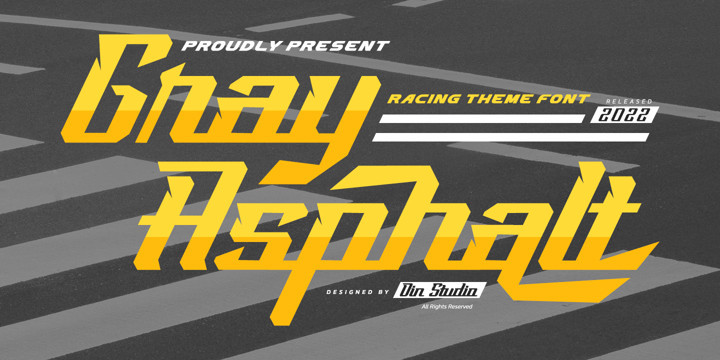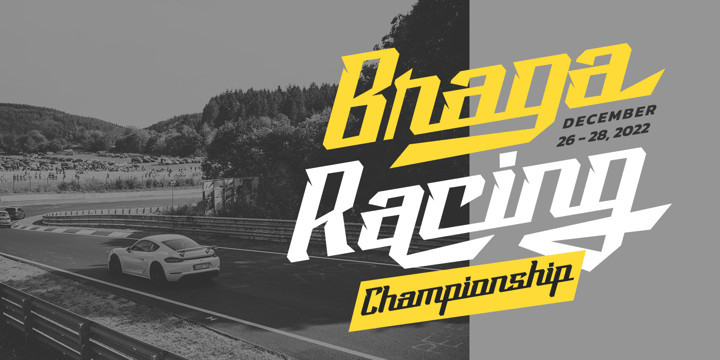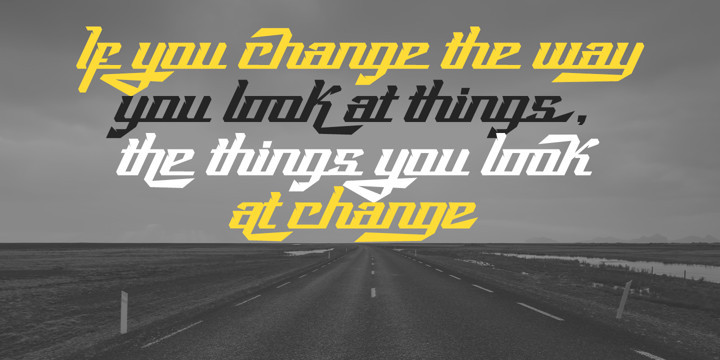
Gray Asphalt Font
Gray Asphalt FontGray Asphalt is a racing-themed script font to give you steady, firm, solid impressions for word or message emphases. Its thick display is suitable to apply on bigger-sized texts.
Gray Asphalt fits best for various designs, such as posters, banners, logos, book covers, headings, printed products, merchandise, social media, and more. Find out more ways to use this font by taking a look at the font preview. Enjoy your experience with this font and feel free to contact us for further product information or trouble complaints. Thank you and wish you good luck with your designs,